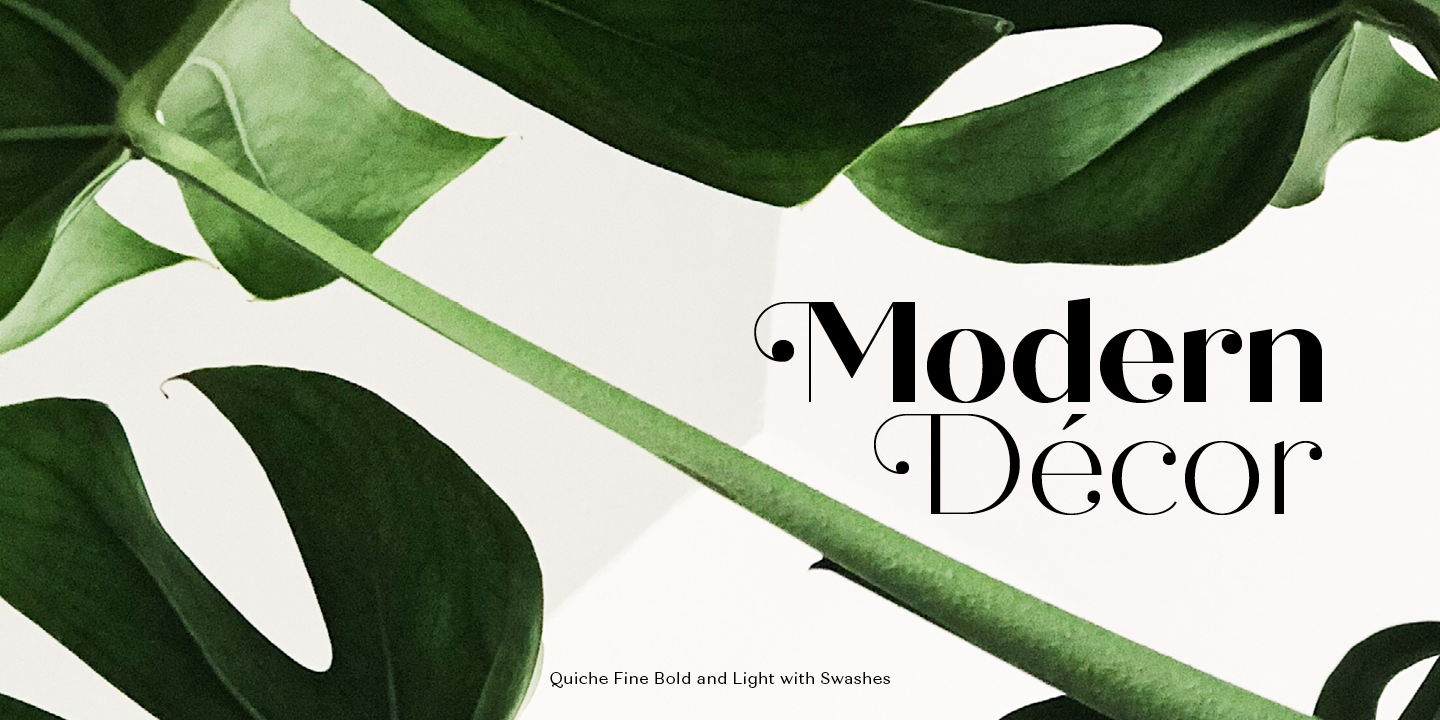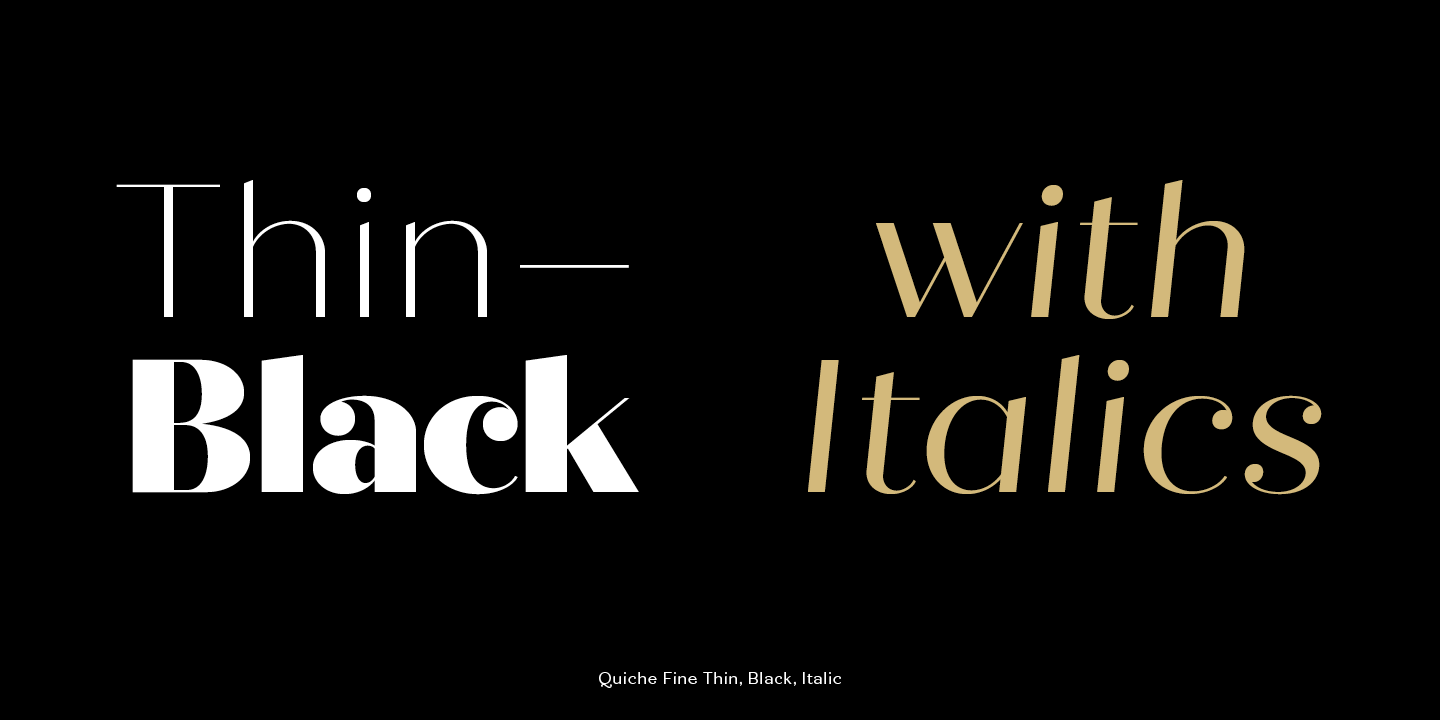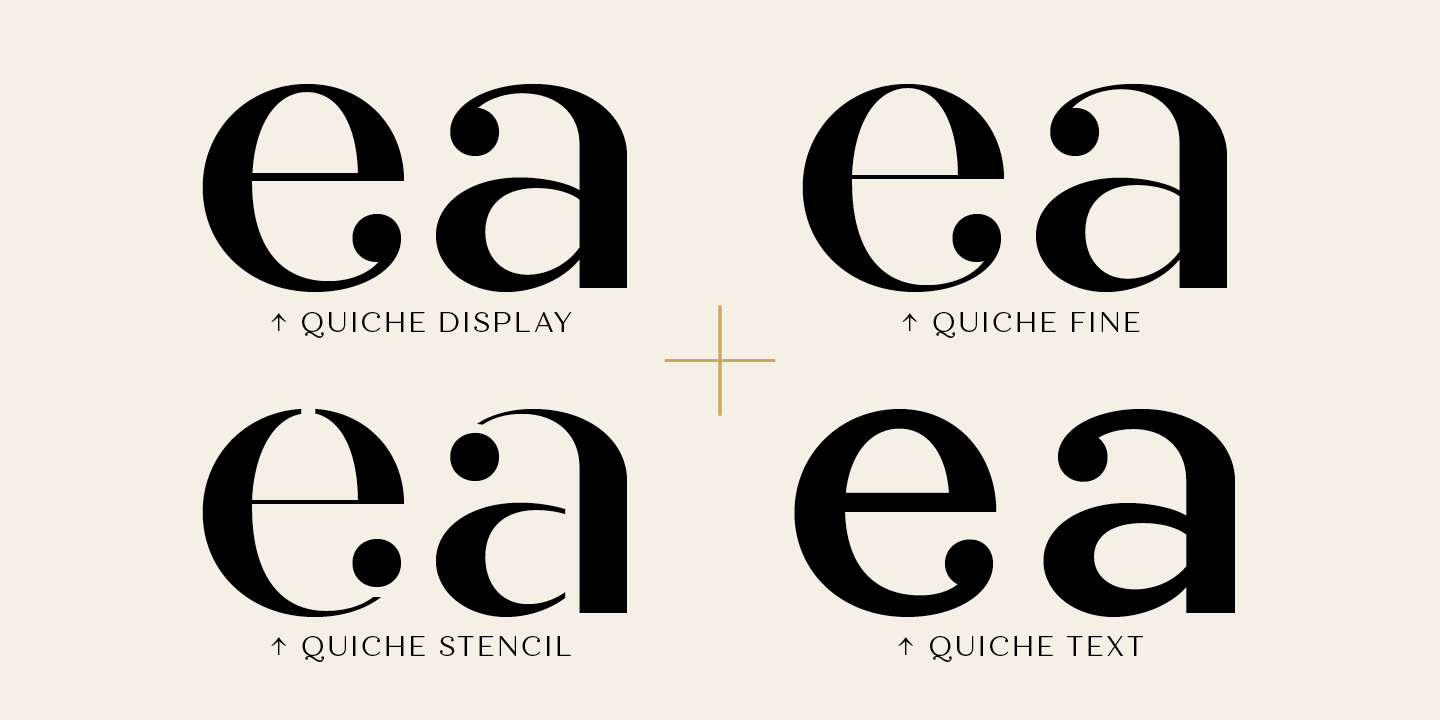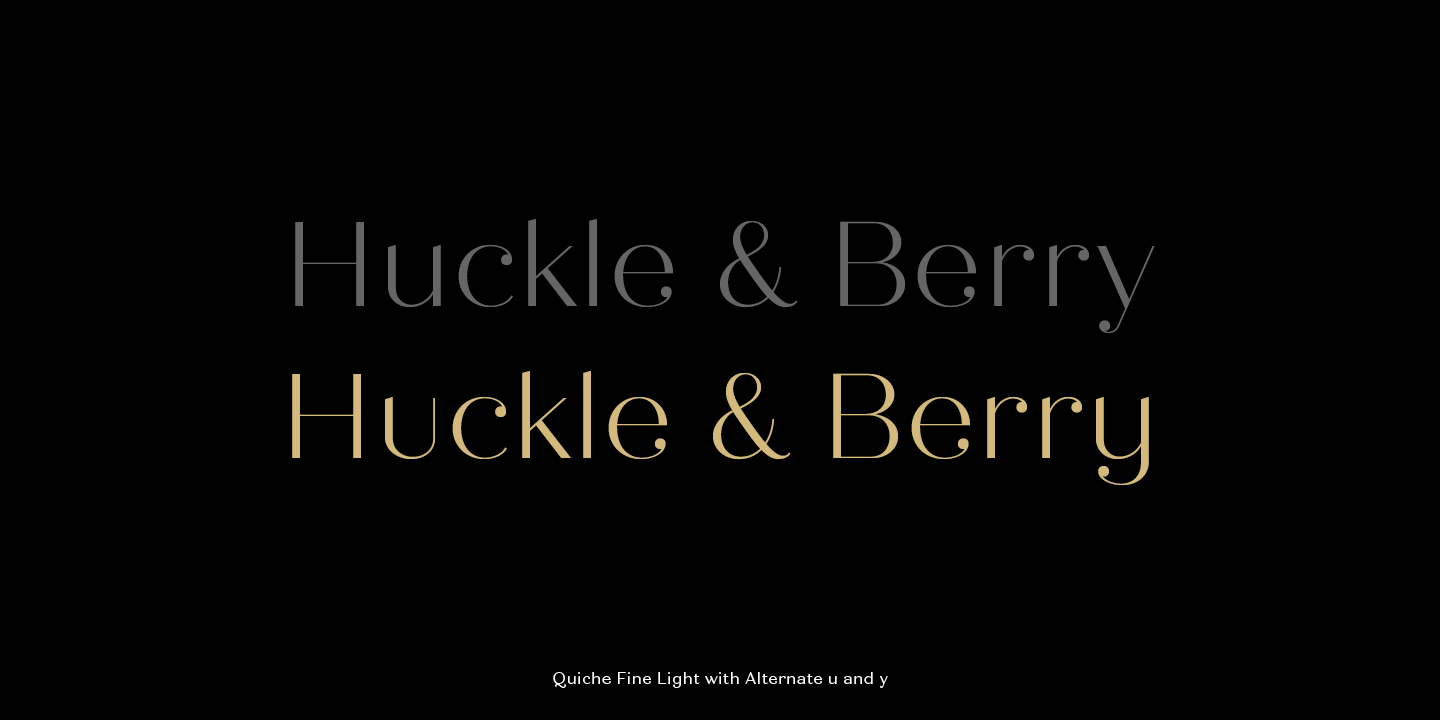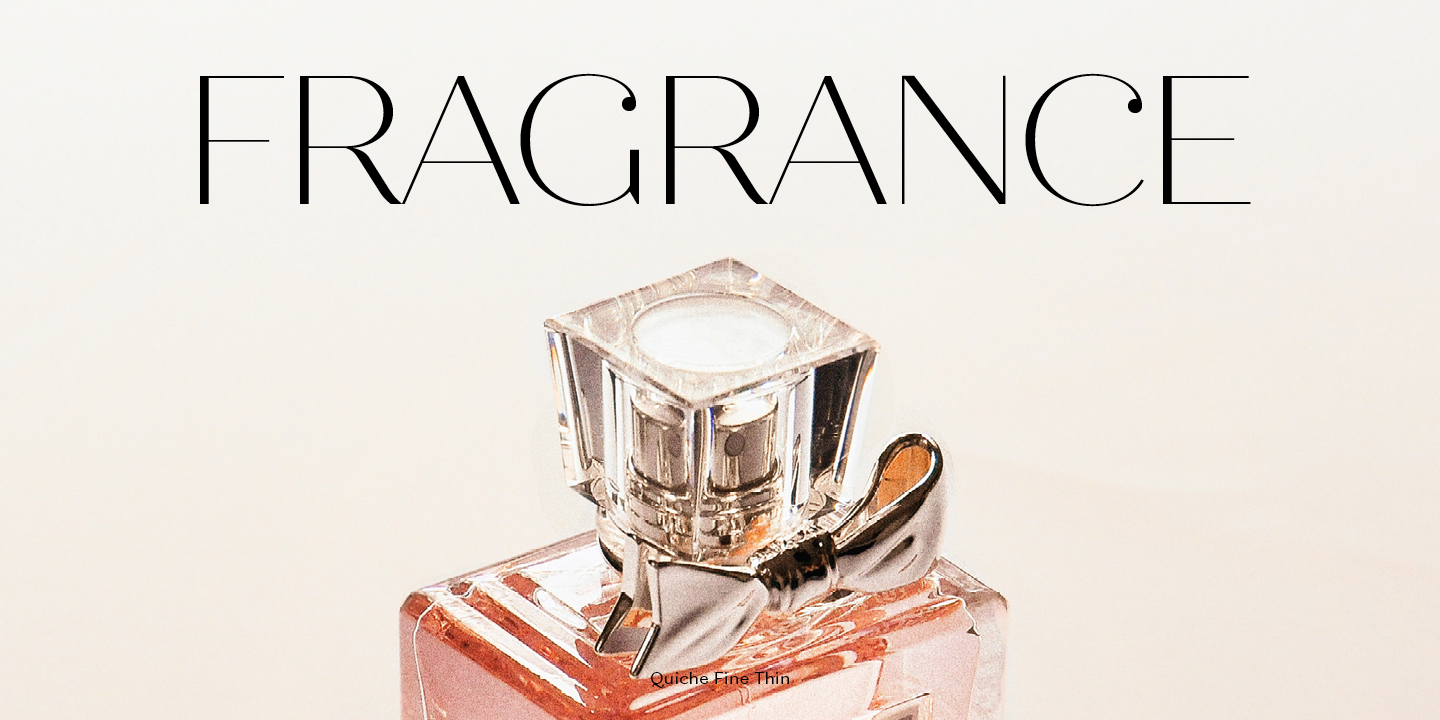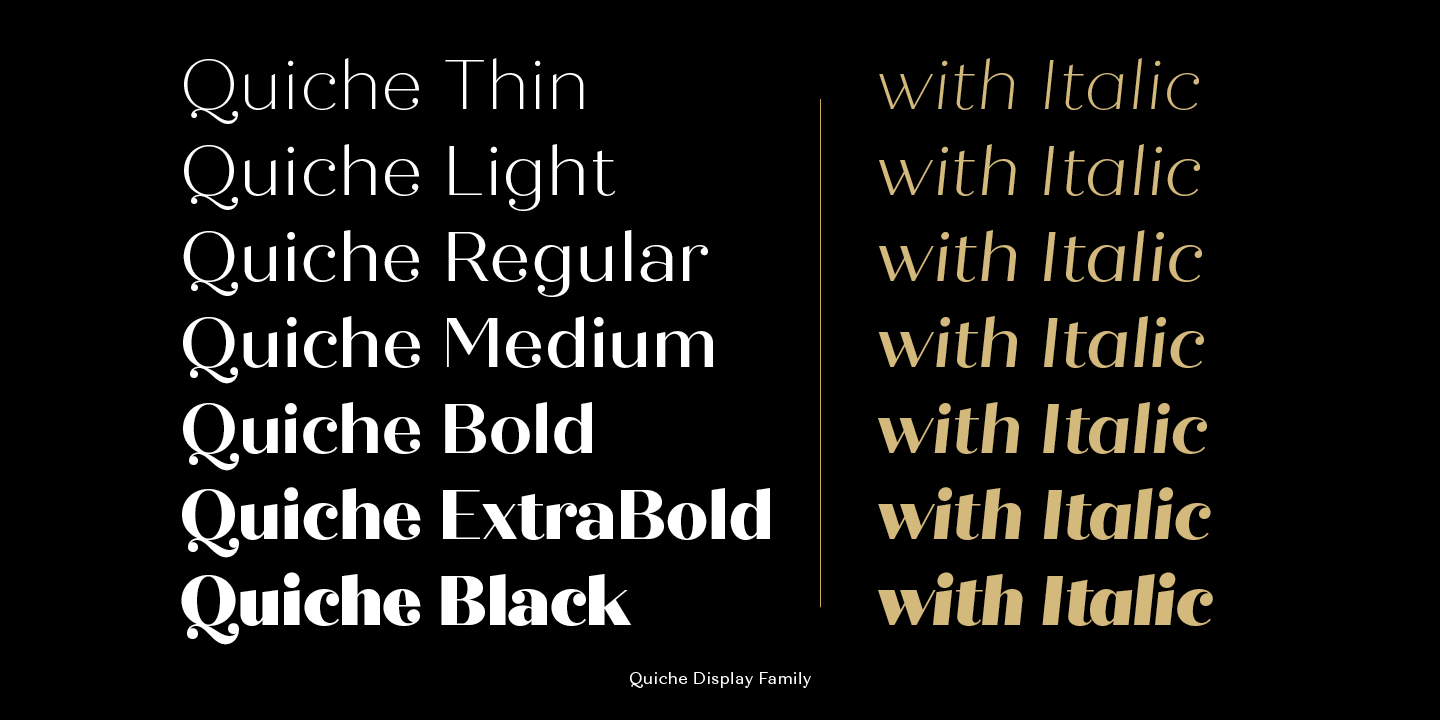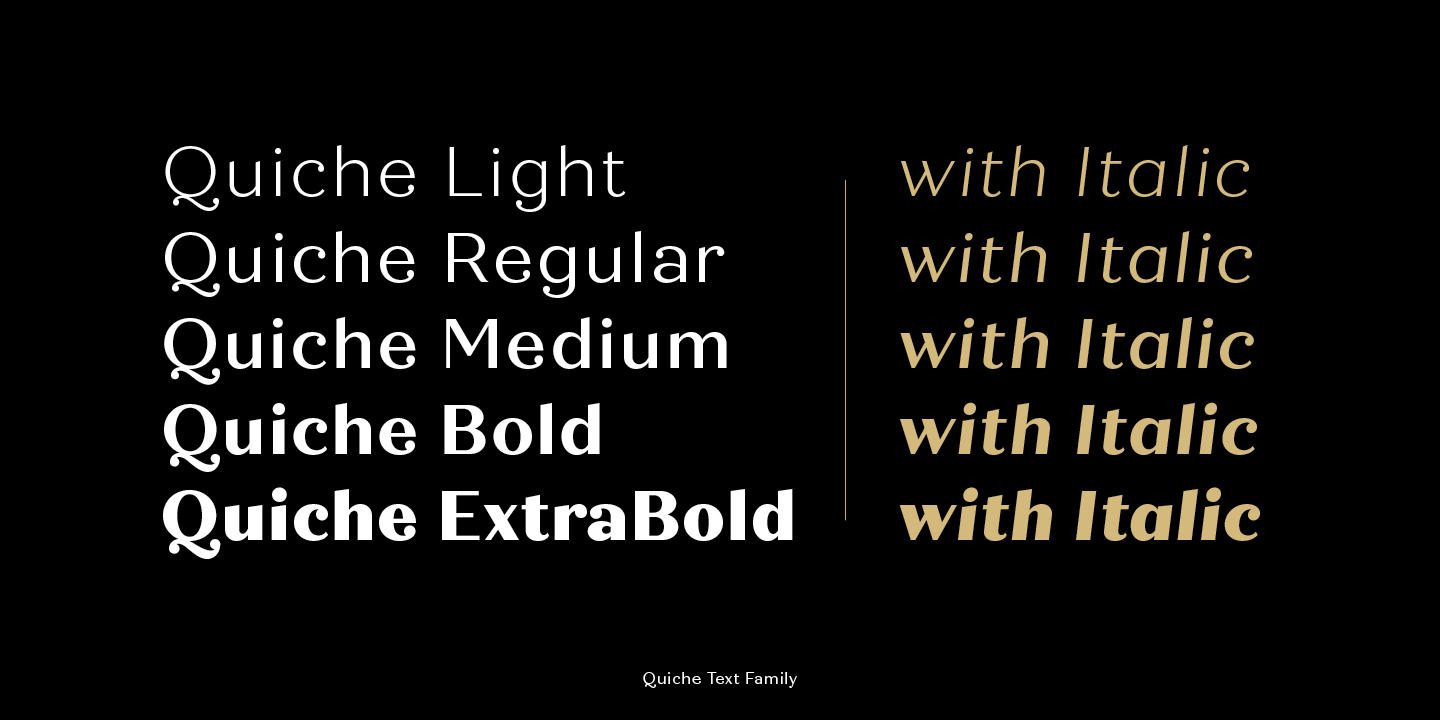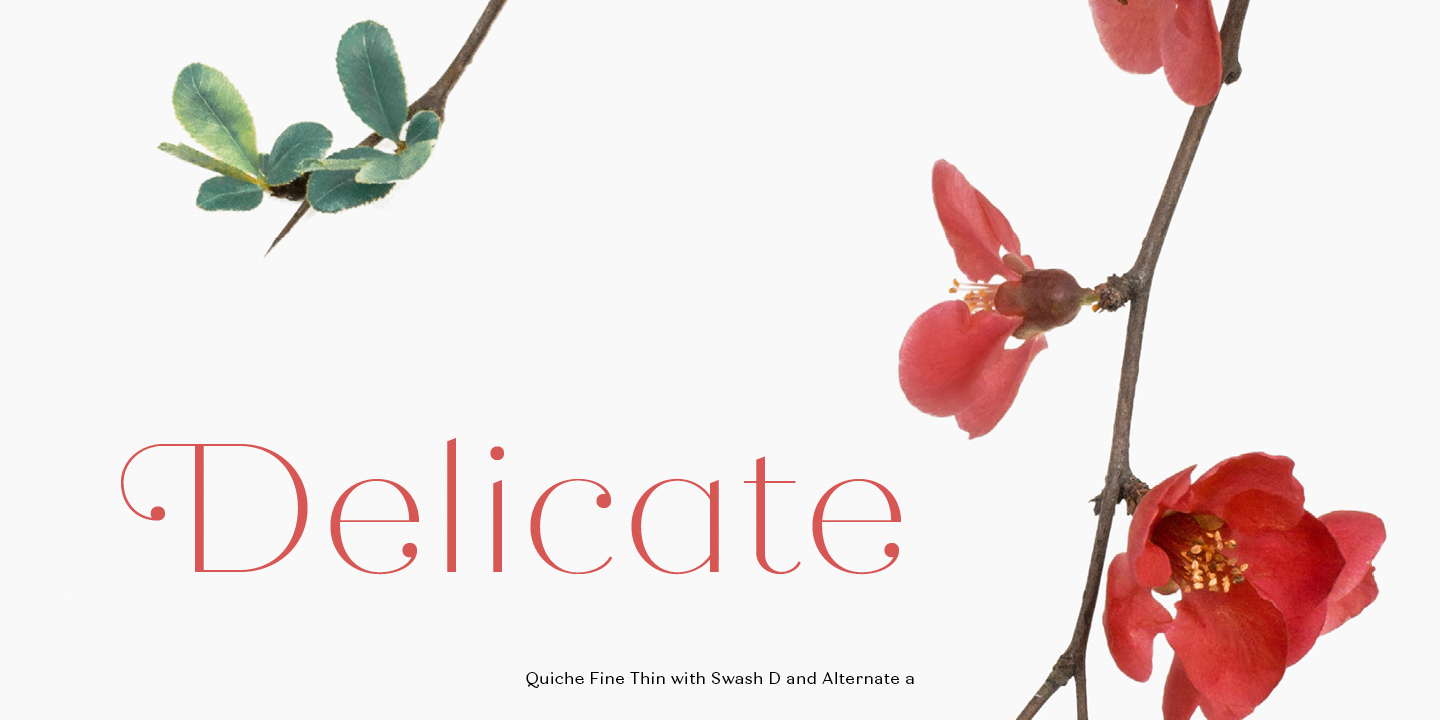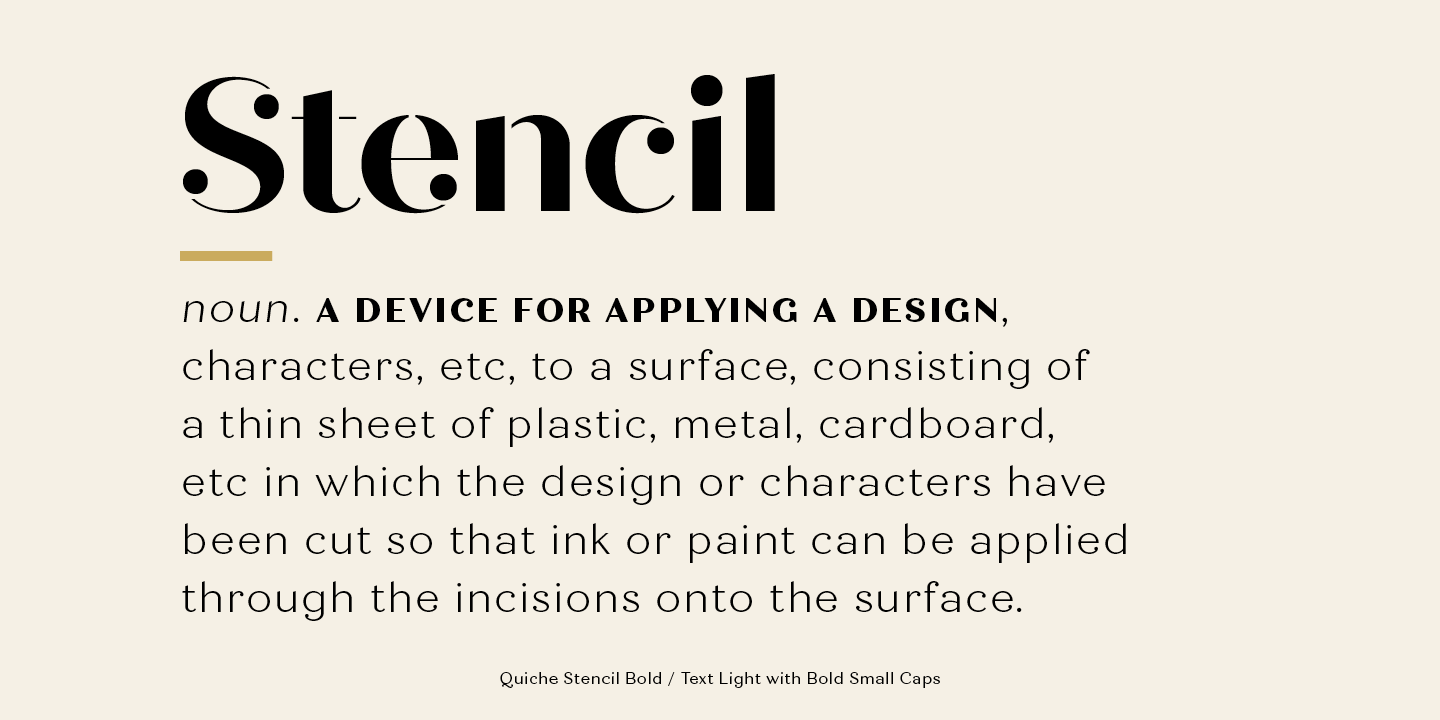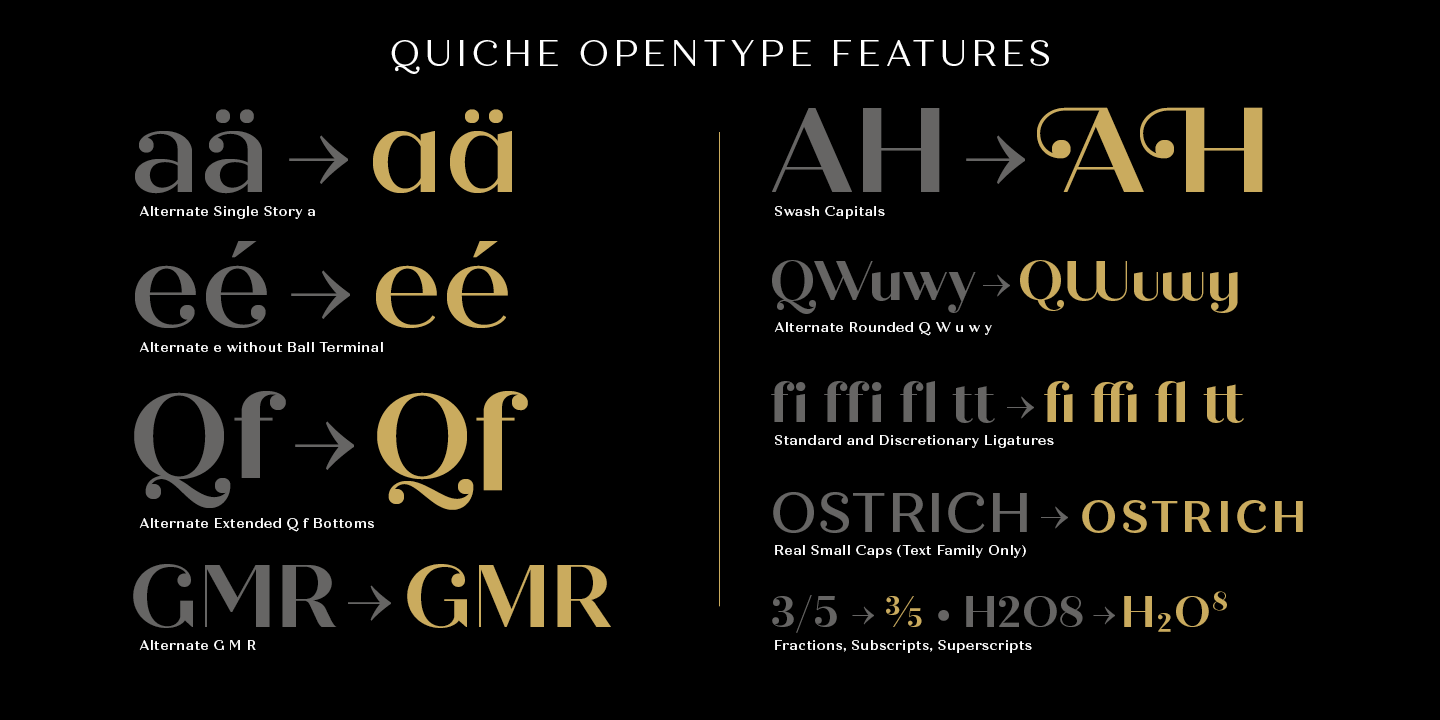
Quiche is a high-contrast, sans serif typeface featuring ball terminals and angled stems. This 52 font superfamily is a complete branding suite. The 4 subfamilies—Display, Fine, Stencil, and Text—were created to work harmoniously together based on the need. With weights ranging from thin to black and matching italics, there are a variety of applications that the fonts can be used for.
The design is influenced by the serif didone genre, characterized by its elegance and extreme thick/thins, but it removes the serifs for a unique and modern expression. The high-contrast style exudes sophistication, while the ball terminals soften the overall look.
For large type settings, use Quiche Display, Fine, or Stencil which have higher contrast and tighter character spacing. For smaller type settings, use Quiche Text, it has less contrast and looser spacing, making it a better reading experience at these sizes.